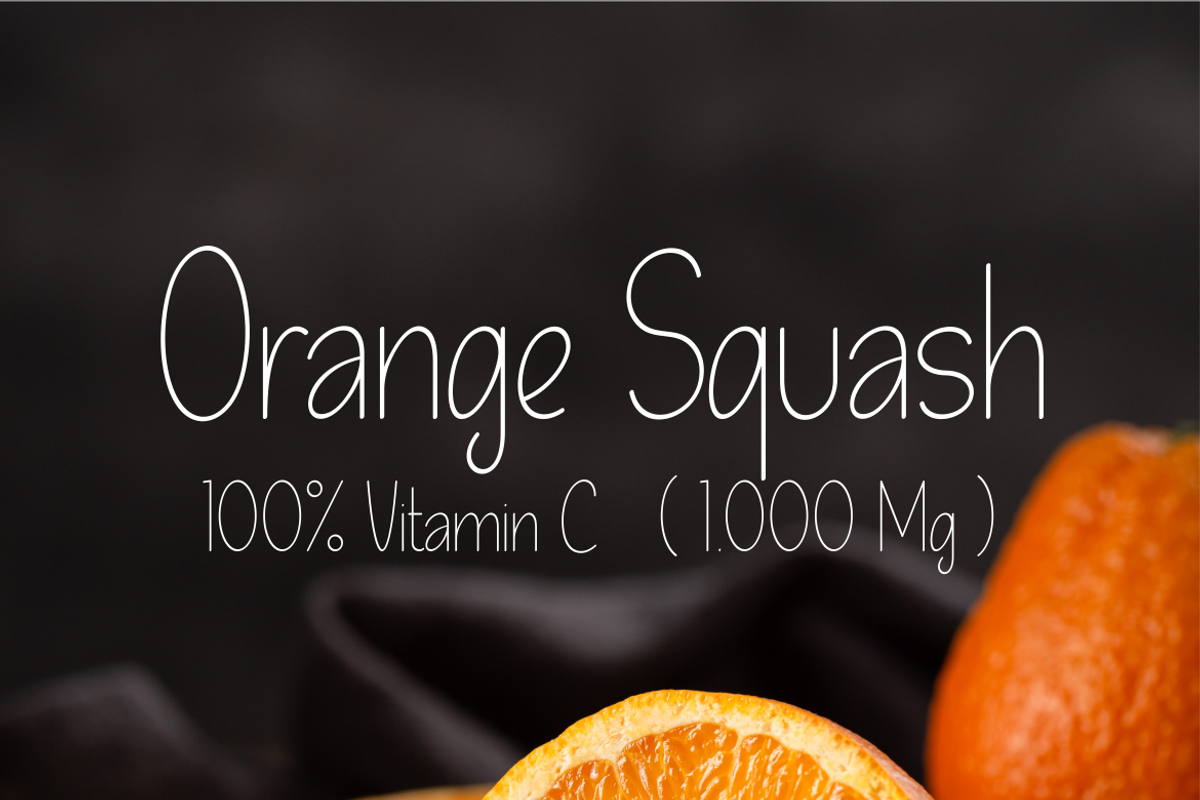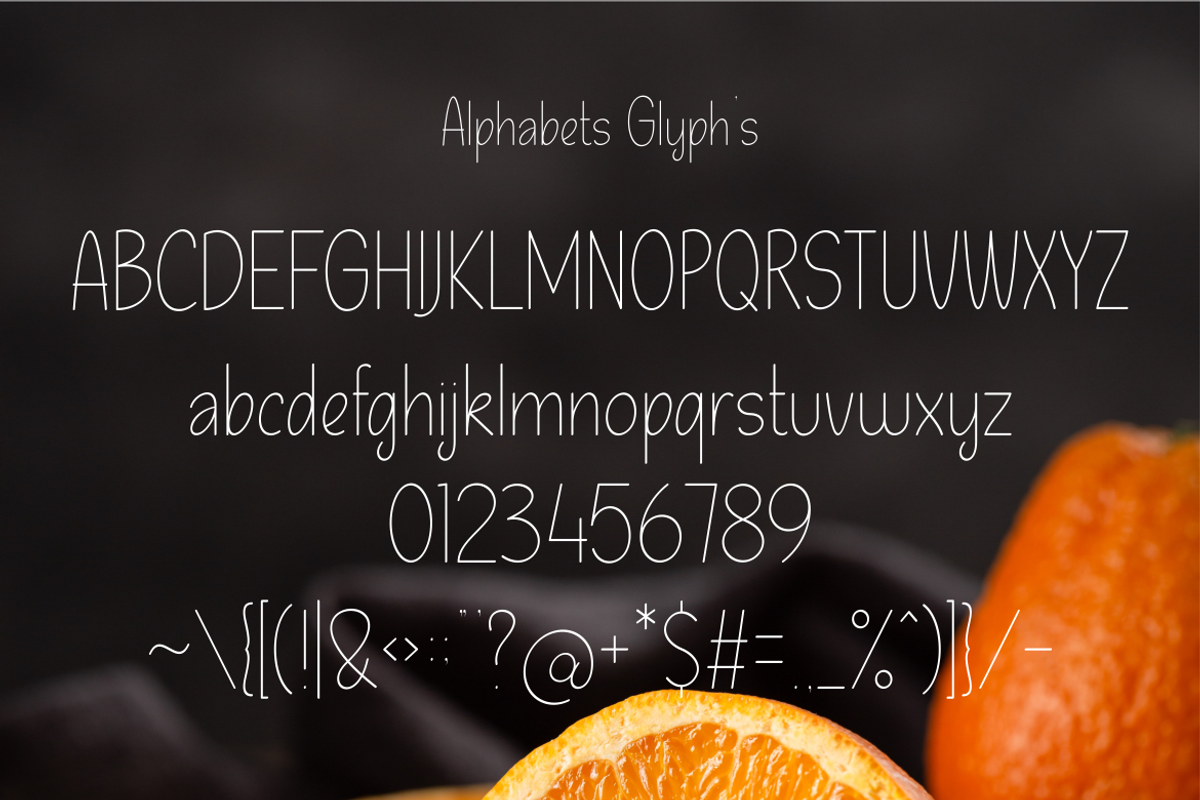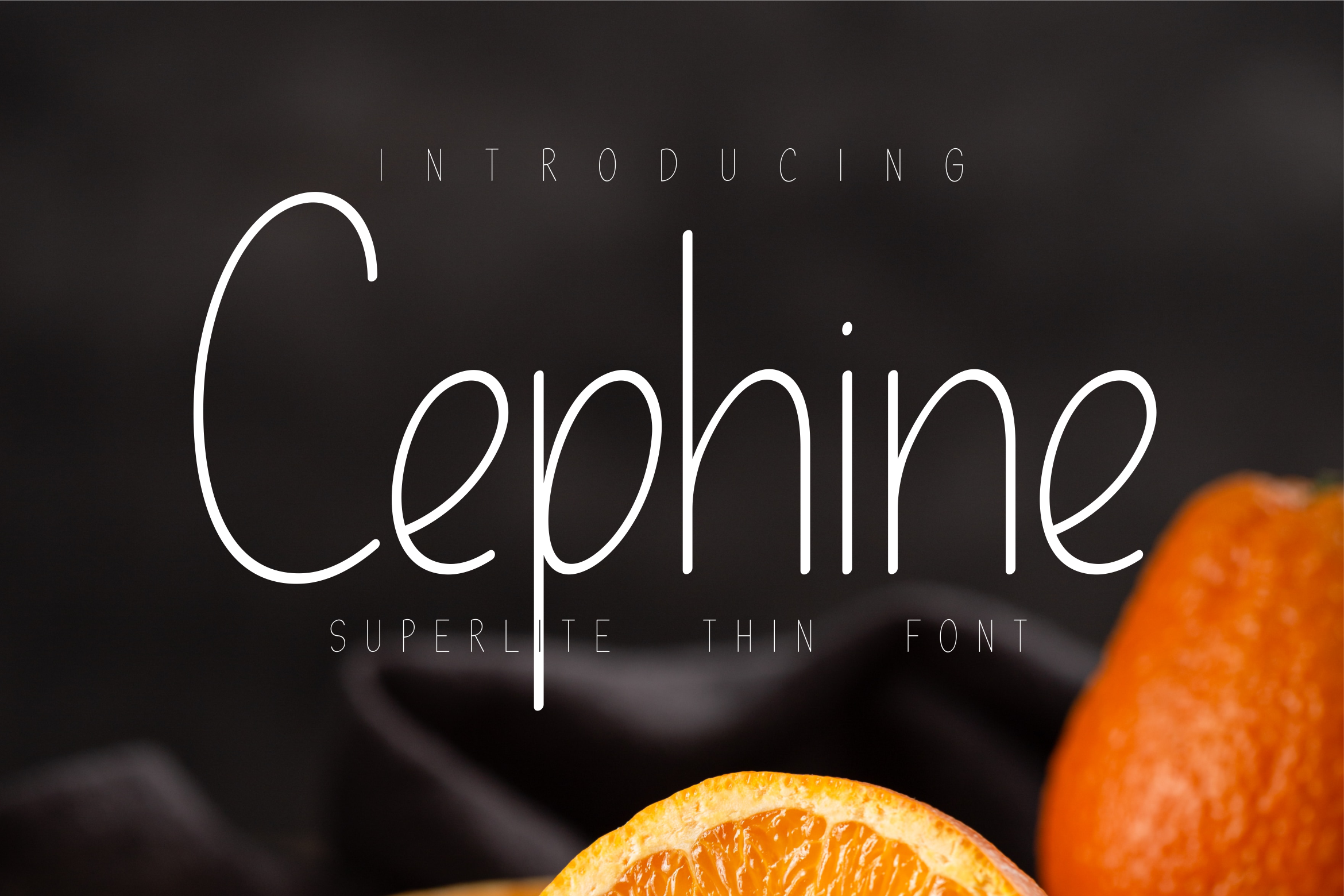
Cephine Lite Description font
Superlite and thin fonts for descriptions of packaged beverage products, such as packaged orange juice or other packaged drinks. Usually, fonts like this are suitable for elongated packaging shapes.